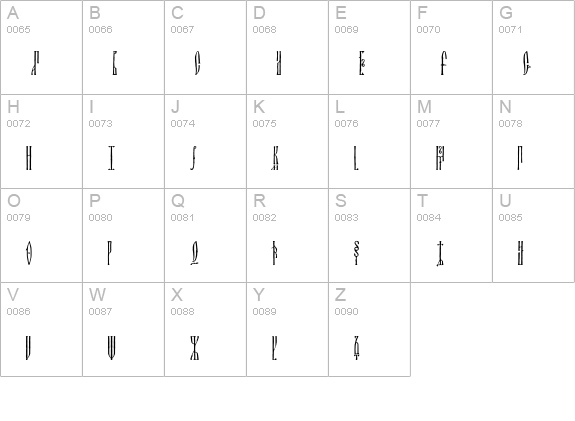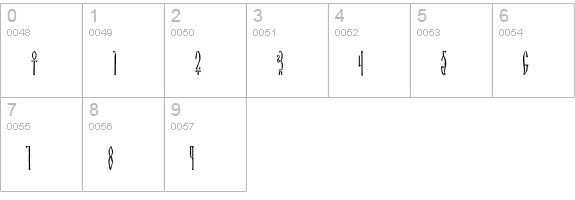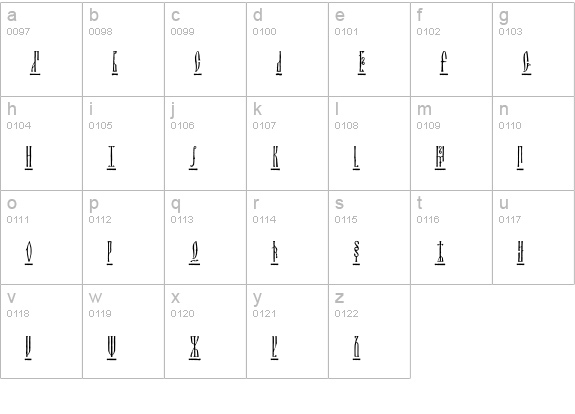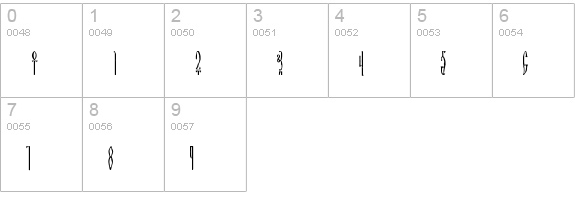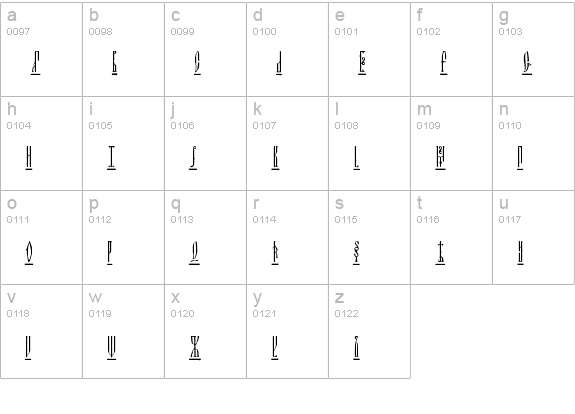
FedorovAnglo Font Details
FedorovAnglo font is a stunning display typeface that exudes elegance and sophistication. With its stylish serifs and clean lines, this font is perfect for adding a touch of class to any design project. Whether you're working on a branding project, editorial design, or any other creative endeavor, FedorovAnglo font will elevate your work to the next level. The best part is that FedorovAnglo font is completely free to download at FontsMarket.com. You can easily access this beautiful font and use it in your projects without any restrictions. Don't miss out on this fantastic opportunity to enhance your designs with the timeless charm of FedorovAnglo font. Download it today and let your creativity shine!